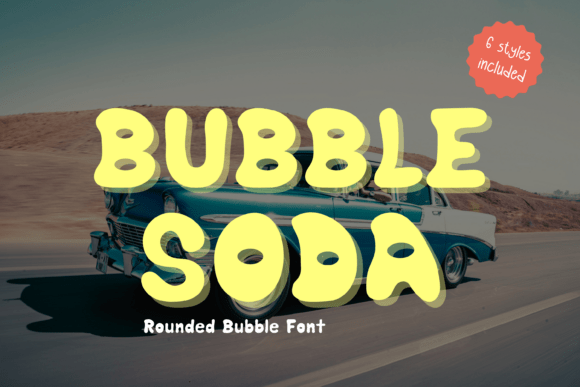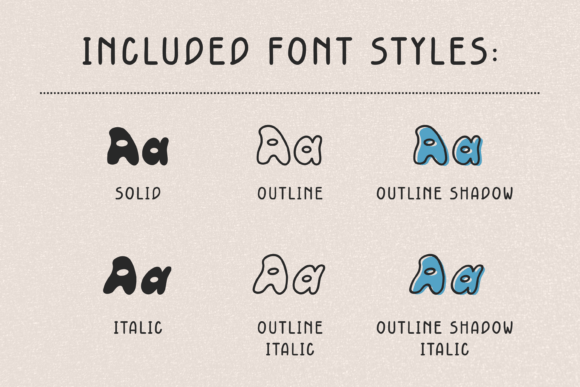
Pinkie Promise canva Font
If you’re looking to inject some instant joy into your designs, let me introduce you to Pinkie Promise. It is a charming and whimsical handwriting font adorned with sweet little heart accents, making it absolutely perfect for adding a touch of love and creativity to your projects! Whenever I’m curation-mode for a new project, this is exactly the kind of playful typography I gravitate toward.
Whether you’re taking school notes, designing digital planners in GoodNotes or Procreate, or crafting layouts on Canva, this adorable font will bring warmth and personality to every single page. Its playful design and neat strokes make it incredibly versatile for students, crafters, and anyone who is constantly on the hunt for cute canva fonts to elevate their overall aesthetic. It honestly feels like a warm hug in digital form, and it’s bound to become a staple in your design toolkit!
Crispy Breadstick Font
Meet Crispy Breadstick – a tall, quirky, and delightfully skinny handwritten font! 🥖✨ Created with love by mtk studio, this font brings a perfectly imperfect, authentic hand-drawn feel to your creative projects. As a designer, I’m always looking for typography that feels personal and grounded, and this one absolutely hits the mark. With its thin, slightly bouncy strokes and cozy aesthetic, it looks exactly like neat, cute handwriting.
It’s the ultimate choice for designing aesthetic recipe cards, digital journaling, bakery branding, or minimalist crafting. If you are constantly scouting for cute canva fonts that add a relaxed, modern vibe without feeling messy, this is a brilliant addition to your collection. Bonus: This font includes Multilingual Support (Latin Extended) to help your designs reach a global audience, making it as functional as it is adorable!
Linea Form Czcionka
Introducing LineaForm Serif, a sleek and refined serif typeface with a minimalist twist. Designed for creators who crave sophistication and balance, this font is ideal for logos, branding, wedding invitations, editorial layouts, and more. When I’m working on a project that needs to feel elevated yet approachable, I love turning to clean typographies like this one.
With clean, geometric lines and subtle detailing, LineaForm brings a high-end feel to any project. Whether you’re designing a luxury brand identity or an elegant magazine spread, this typeface delivers style and clarity in perfect harmony. While it leans into a more polished aesthetic, its neat proportions make it a fantastic, unique alternative if you want to balance out your collection of traditional cute canva fonts with something a bit more structured and chic.
Bubble Soda canva fonts
Looking for a quirky, bold, and friendly font to add personality to your projects? Say hello to Bubble Soda, a bubbly rounded display font perfect for kids’ designs, party invitations, posters, logos, comic books, and all things fun! As a designer, I am absolutely obsessed with how much energy this typeface brings to a blank canvas—it instantly makes any layout pop with positive vibes.
With 6 unique styles included, Bubble Soda gives you endless creative options to play with. The hand-drawn charm and comic-inspired curves make it stand out whether you’re creating digital art, printable materials, or branding graphics. If you are on the hunt for versatile cute canva fonts that combine a retro comic feel with modern playfulness, this thick, rounded gem needs to be at the top of your design list!
Mini Cute
If you are looking for a typeface that radiates pure warmth, let me introduce you to Mini Cute. It is a sweet and friendly handwritten font, and its natural, unique style makes it incredibly fitting for a massive pool of designs. Whenever I want a project to feel deeply personal, approachable, and authentic, this is exactly the kind of lettering I love to reach for.
The only limit with this one is your imagination! It works beautifully for everything from cozy social media graphics to custom stationery and digital planning layouts. If you are curating a collection of go-to cute canva fonts that bring an instant sense of charm and effortless creativity to your artwork, Mini Cute is an absolute must-have for your digital toolbox.
Bunny Groovy Pastel Font
Welcome to the Bunny Groovy Pastel Collection – a massive, high-quality chubby color bubble font bundle packed with 5 dreamy pastel color palettes! As a designer, I am absolutely head over heels for this vibrant, nostalgic style, and it is absolutely perfect for sublimation, trendy Y2K t-shirts, tumblers, stickers, Easter crafts, and cute classroom decor.